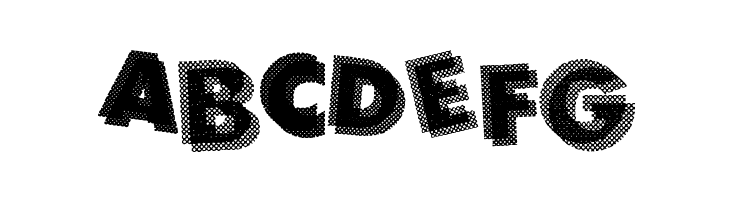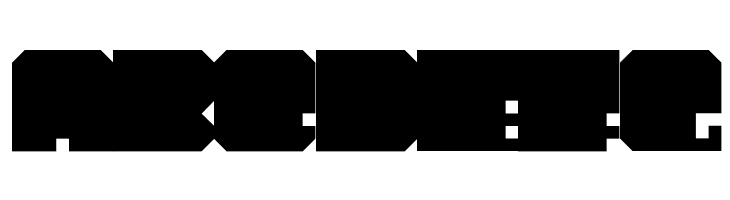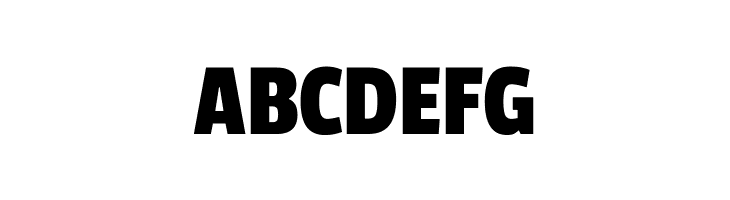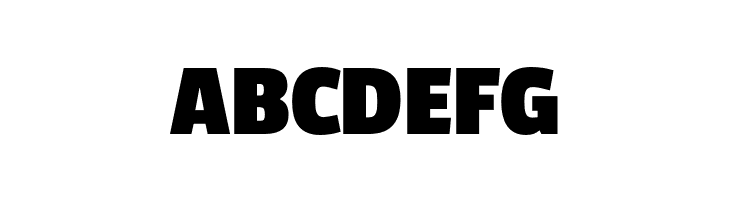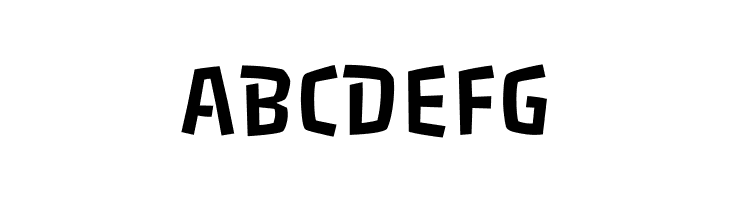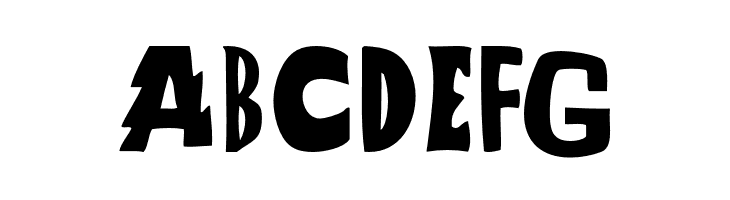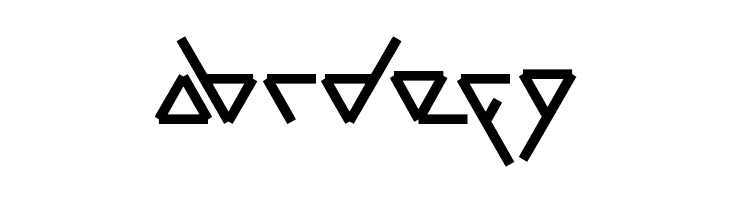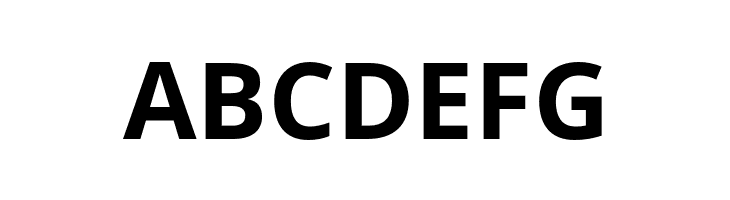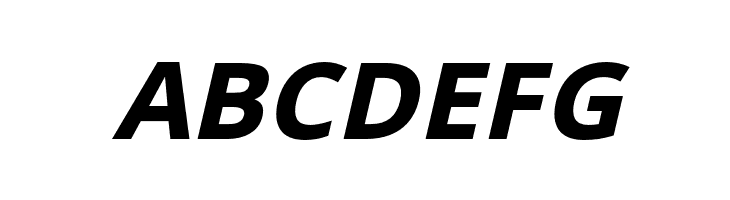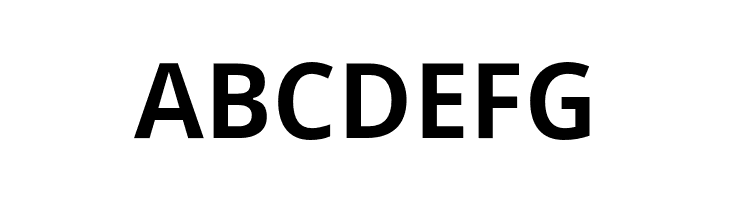
• pandaman
A bold, geometric font with a futuristic and abstract design.
• pandaman
• pandora limiter
A bold, angular font with a futuristic and edgy design.
• Panforte Condensed Bold
A bold, condensed font with rounded edges and tight spacing.
• Panforte Condensed Bold Italic
A bold, italic, and condensed font with a modern and dynamic style.
• Panforte Condensed Light
A modern, condensed, and light font with geometric letterforms.
• Panforte Condensed Light Italic
A sleek, condensed, light italic font with a modern and elegant style.
• Panforte Condensed Regular
A modern, condensed font with a clean and streamlined appearance.
A modern, condensed italic font with uniform strokes and a sleek appearance.
• Panic
A bold, halftone-textured font with a playful, comic book style.
• Panic
A bold, playful font with a retro comic book style and halftone texture.
• PaperCut-Regular
• parallel
A geometric, angular font with a futuristic and bold design.
• parallel
A futuristic, angular font with sharp lines and a geometric style.
• Park Tech CG Light
A futuristic, circuit-inspired font with intricate linework and electronic motifs.
• Parrannoyed-Regular
A playful, whimsical font with bold, irregular shapes and a hand-drawn feel.
• Passageway
• Passageway Bold
A bold, modern sans-serif font with strong, clean lines.
• Passageway Bold Italic
• Passageway Bold SuperItalic
A bold, italicized font with a dynamic and commanding style.
• Passageway Italic
• Passageway Light
A clean, modern sans-serif font with geometric letterforms and uniform stroke width.
• Passageway Light Italic